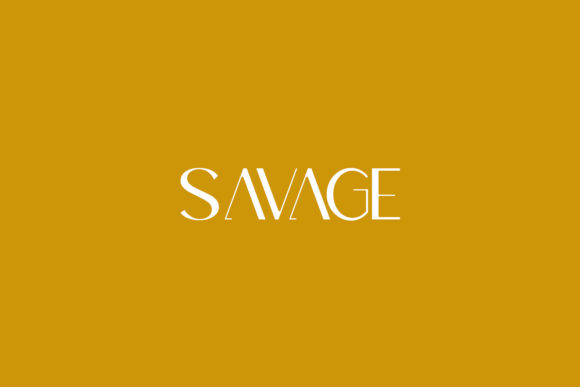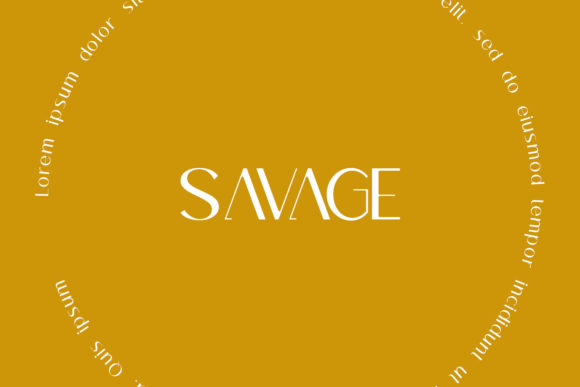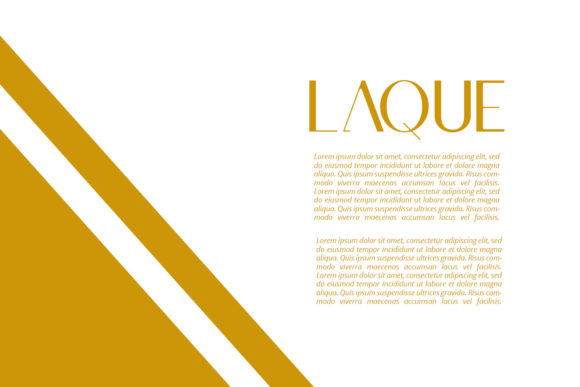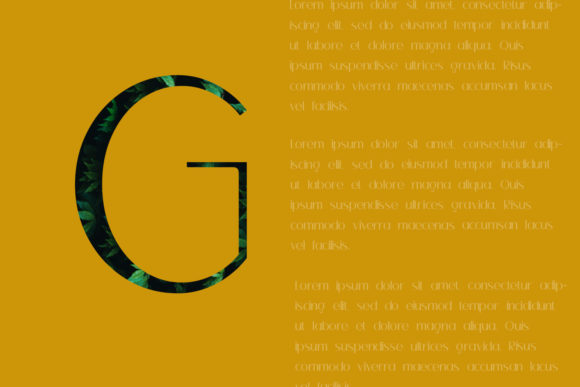
The Ultimate Guide to Gauge Font: Elevate Your Designs with Modern Flair
I’ll never forget the moment I stumbled upon the Gauge font. I was working on a project for a client who needed a modern and sleek display font that would make their brand stand out. As I scrolled through my font library, I felt like I was stuck in a sea of sameness – until I saw Gauge. Its sharp lines and contemporary vibe instantly caught my attention, and I knew I had found the perfect fit. In this article, I’ll share my experience with Gauge, its features, and how to make the most of it in your designs.
An Honest Review of Gauge Font
So, what makes Gauge font so special? Let’s dive into the good stuff and a few quirks I’ve discovered.
What I Love About Gauge Font
- ✨ Modern and sharp design: Gauge’s sleek lines and curves make it perfect for headlines, titles, and display text.
- ✅ Highly versatile: This font can be used for a wide range of projects, from branding and advertising to packaging and digital media.
- 💡 Excellent legibility: Even at smaller sizes, Gauge remains clear and easy to read, making it a great choice for body text.
While Gauge is an excellent font, there are a few things to keep in mind:
- 🤔 Limited suitability for body text: While Gauge is legible, it’s primarily designed for display text. For longer blocks of text, you may want to pair it with a more traditional font.
- ⚠️ Some characters may require manual kerning: As with any font, you may need to adjust the kerning for certain character combinations to achieve optimal results.
The Story Behind Gauge Font
Gauge font was designed with the goal of creating a modern and versatile display font that would inspire creativity. While I don’t have direct access to the designer’s intentions, it’s clear that Gauge was crafted with attention to detail and a passion for typography.
Q: What is Gauge font best suited for?
A: Gauge font is ideal for display text, headlines, titles, and branding projects where a modern and sleek look is desired.
Q: Is Gauge font suitable for body text?
A: While Gauge is legible, it’s primarily designed for display text. For longer blocks of text, you may want to pair it with a more traditional font.